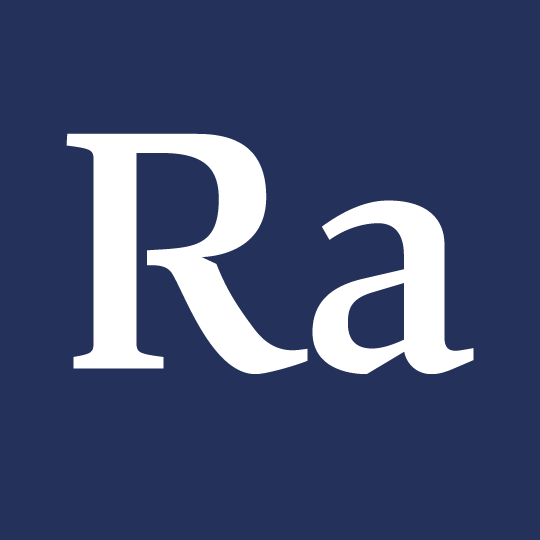
Gardener
Gardener is a typeface that contains 4 weights: Regular, Medium, Bold and Black. It also includes an Italic and a Sans Serif version.
This typeface is inspired by Japanese rock gardens, which is a style of Japanese garden traditionally found at temples or monasteries. Through carefully arranged rocks, sand, and sometimes moss, these landscapes create a balanced composition that reflects the essence of nature. They are meant to be seen, observed, and serve as an aid for meditation.
I have always been interested in the tranquility of Japanese rock gardens - with each elements carefully placed and arranged, they visually create a sense of calm to the viewer. While searching for a suitable idea for my typeface, I find this relatable to type design as both are visual acts of carefully arranging elements. I wanted to design a typeface that is calm, delicate, fragile and imperfect in a sense that reflects the serene feelings rock gardens give me.
I started by exploring elements in rock gardens that can be translated into a typeface. I was really pulled into the roughness of rocks and sands and was quite stuck for a while as all I could do was to make curves with straight lines - which was merely like putting a filter onto the humanist typeface I designed in week 1.
The key moment of change was when instructors reminded me of the sand element in rock gardens - sand is raked into patterns, resembling things like rippling water or waves. Instead of being the white space, sand could actually be the black space (shapes) of my typeface. I was suggested that I could imitate the action of raking sand when I draw letters in calligraphy - by turning the broad-nib pen. That really worked out and I soon found my ‘’hero shape’’ that I made use of in my whole type family.
Of course everything didn’t just go smoothly after finding one single shape. I still had to spend a lot of time figuring out how to transform that shape slightly so it suits the rest of the character set. I also had to figure out the weight proportion of the letters - as I have been turning my pen in calligraphy (it sometimes turns more than 90°), I couldn’t completely follow the normal weight proportion. Sometimes the contrasts would look really strange and I had to find a balance between different approaches. Here’s where trusting your eyes and listening to your feelings comes in - there are indeed rules in type design, but the more important thing is the design direction, decision, and how the typeface speaks to you.
After finding a good direction and a system for my main weight, I started exploring a Black weight and interpolating other weights through that. The Sans Serif and Italic version also started getting into form at a similar time. This was my favourite part in the process seeing the main style transform into unexpected textures and feelings. At this point in time, Gardener is far from perfect and definitely need a bit of developing and tweaking in the future. It mainly works best in a relatively smaller text size, while the Black weight has potential to be used for display.